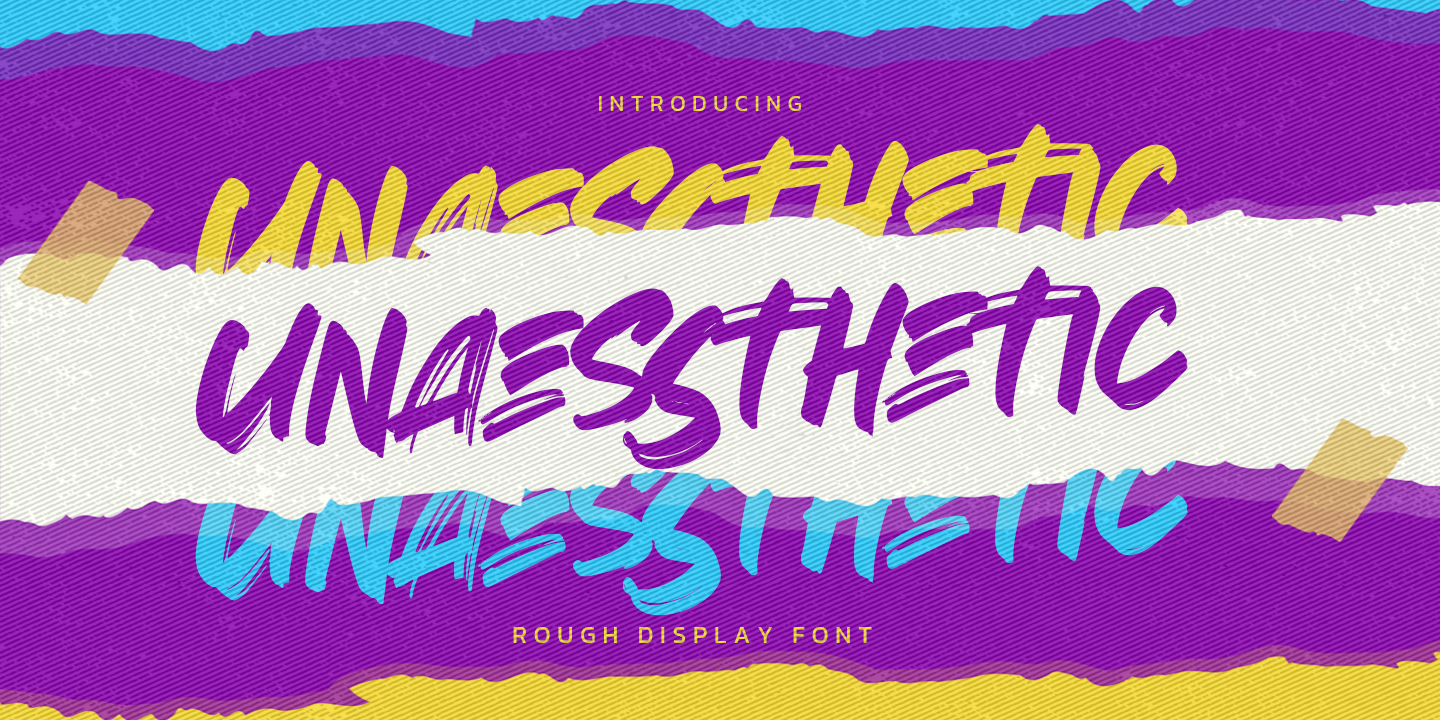
Unaessthetic Font is a raw and intensely powerful typeface, perfectly suited for projects that aim to challenge conventions, embrace imperfection, and make an undeniable, unfiltered statement. Imagine it dominating the album art for an experimental music project, adding a gritty and rebellious edge to underground zine covers, or making an unmissable declaration on posters for avant-garde art exhibitions. It's also an excellent choice for crafting striking headlines for provocative campaigns, designing impactful merchandise for anti-establishment brands, or bringing a raw, unapologetic vibe to digital content and visual art that seeks to disrupt the norm. If you're looking to convey honesty, disruption, and an undeniable sense of raw, unpolished authenticity, Unaessthetic Font is an outstanding selection.
What makes Unaessthetic Font so exciting? It’s its unparalleled ability to strip away traditional notions of beauty, offering a direct and impactful visual language that speaks volumes through its unconventional forms. This font often features distressed textures, irregular baselines, or fragmented letterforms that give it an undeniable charisma and visual punch. Designed to be impactful in display settings, Unaessthetic Font ensures your message is delivered with both raw clarity and significant emotional force. Designers will appreciate its versatility in creating designs that are both visually aggressive and deeply memorable, making it a go-to choice for projects that need to break free from conformity and make a bold artistic statement about reality.
The Unaessthetic Font family is typically designed to showcase a singular, high-impact display style that perfectly embodies its unique character. While it may not feature extensive weight variations like a traditional text font, its strength lies in its inherent personality and often includes stylistic alternatives, ligatures, or a set of unique glyphs that enhance its raw and unrefined aesthetic. These subtle details allow Unaessthetic Font to maintain its cohesive and compelling visual identity across various applications, from commanding headlines for protest art to expressive digital artwork for underground movements. Discover the formidable power of Unaessthetic Font Free Download and infuse your designs with an unforgettable sense of unfiltered, creative authenticity.